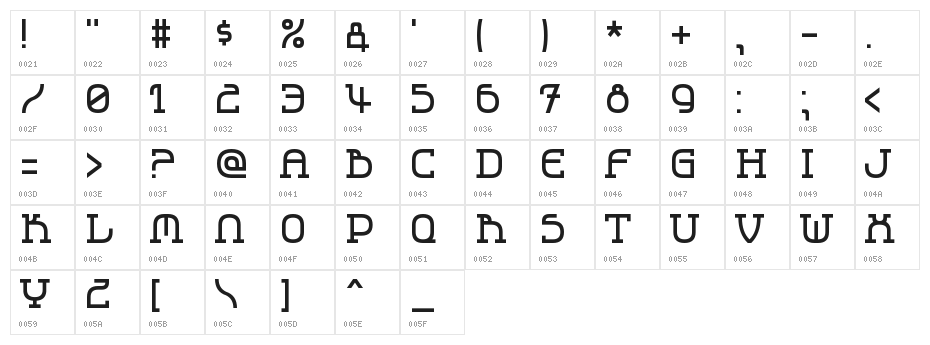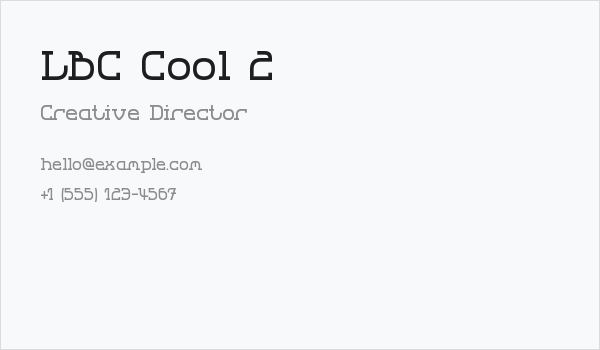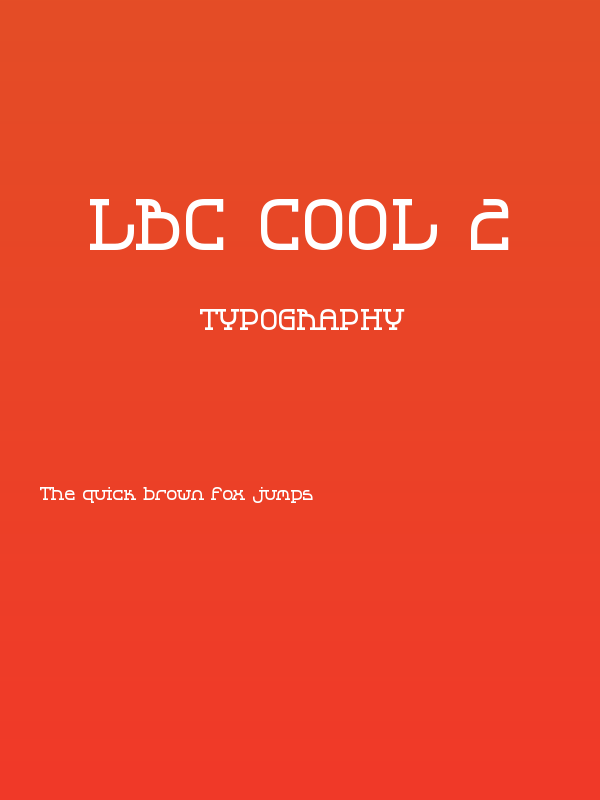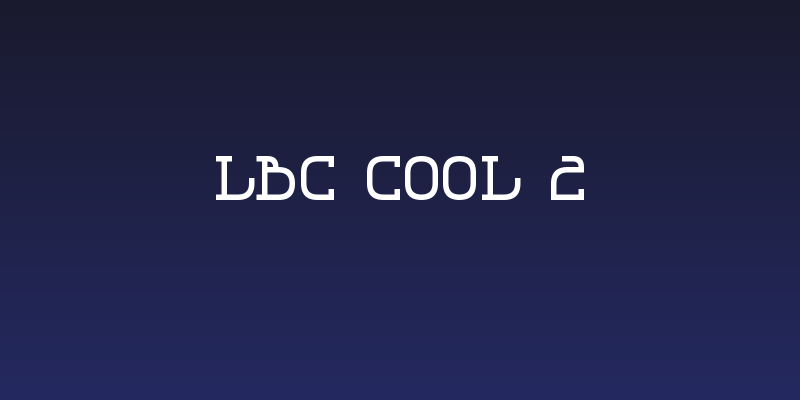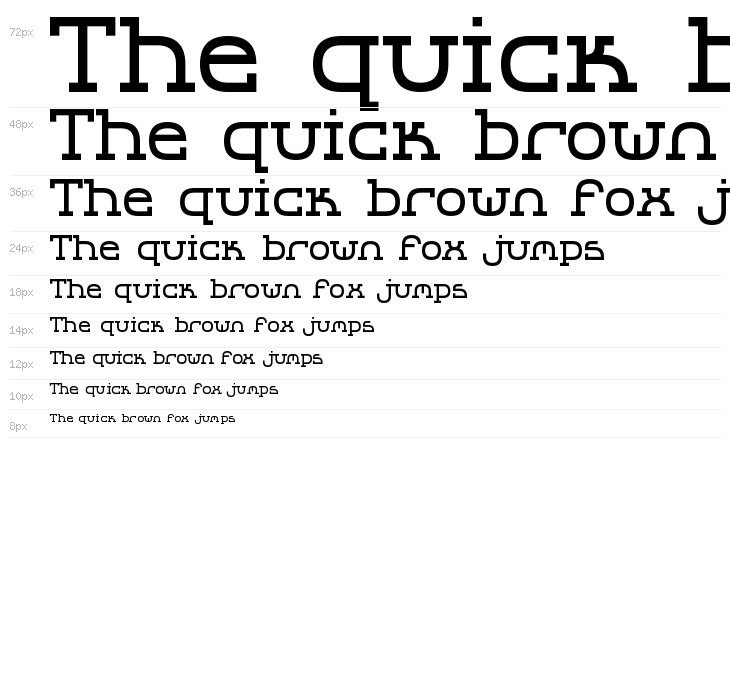
LBC Cool 2 Font
LBC Cool 2 Description
This font features a modern and geometric design with a unique twist. The characters are constructed with clean, straight lines and rounded edges, giving it a futuristic and tech-inspired appearance. The uppercase and lowercase letters maintain a consistent style, with some characters exhibiting distinctive shapes, such as the curved 'A' and 'N'. The numerals are bold and clear, ensuring readability. Special characters are designed to match the overall aesthetic, making this font versatile for various applications.
Overall StyleFuturistic, Tech-inspired
Use CaseHeadlines, Logos, Digital interfaces
Proposed ProjectsIdeal for tech branding, modern websites, digital interfaces, and futuristic design projects.